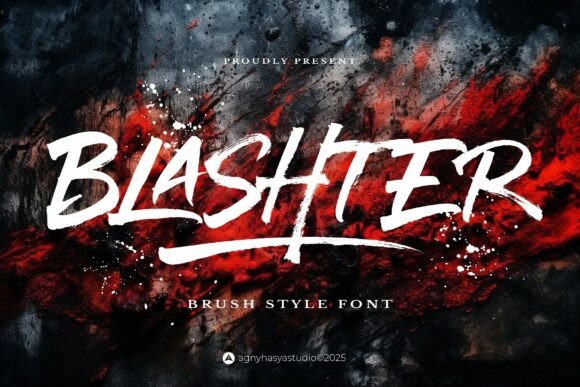
The Blashter Font: Unleashing Urban Energy in Your Designs
I’ll never forget the design project that led me to discover the Blashter font. I was working on a branding campaign for a trendy skate shop, and I needed a font that captured the raw energy of street culture. After hours of searching, I stumbled upon Blashter, and it was love at first sight. The bold, expressive lines and rebellious charm instantly resonated with the brand’s vibe. In this article, I’ll share my experience with Blashter, its features, and how to make the most of this amazing font in your designs.
An Honest Review of Blashter Font
What I Love About Blashter ✨
- ✅ Unique and authentic style: Blashter’s brush script design embodies the spirit of street art and hand-drawn lettering.
- ✅ Multilingual support: This font supports multiple languages, making it an excellent choice for global designers and artists.
- ✅ High-impact visuals: Blashter adds personality and momentum to any design, making it perfect for headlines, titles, and promotional materials.
- ✅ Easy to read: Despite its bold and expressive nature, Blashter remains legible, even at smaller font sizes.
- ⚠️ Limited use in formal designs: Blashter’s rebellious charm might not be suitable for formal or corporate designs, where a more traditional font might be preferred.
- ⚠️ Requires careful kerning: As with any script font, kerning can be a challenge. Make sure to adjust the spacing to achieve the best results.
The Backstory of Blashter Font
Blashter was inspired by the vibrant street art scene of the 1980s. The font’s creator, a young designer with a passion for graffiti and hip-hop, wanted to capture the raw energy and spontaneity of hand-drawn lettering. The result is a font that exudes confidence, rhythm, and a rebellious charm.
Q: What is the best use for Blashter font?
A: Blashter is perfect for designs that require a bold, urban look, such as branding, advertising, and streetwear designs.